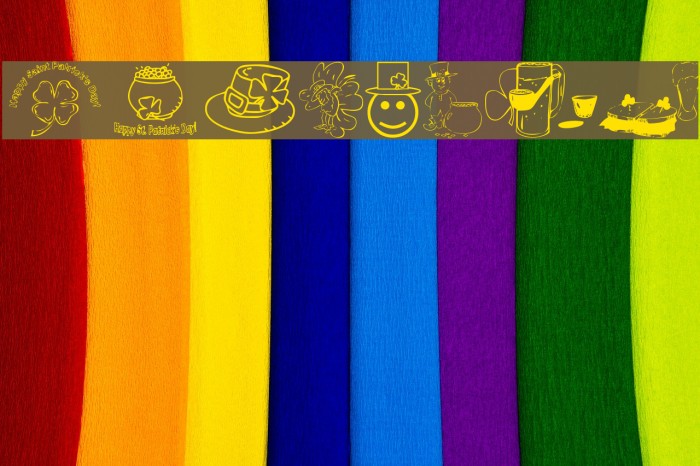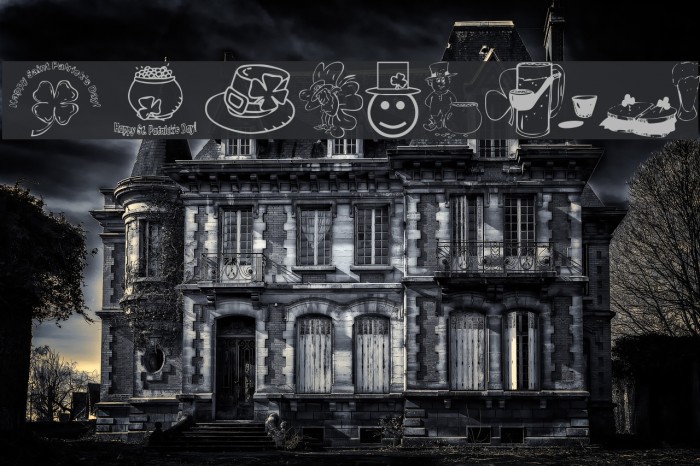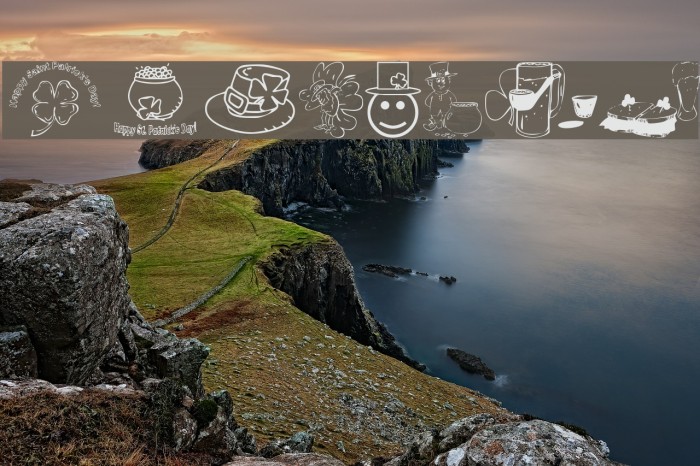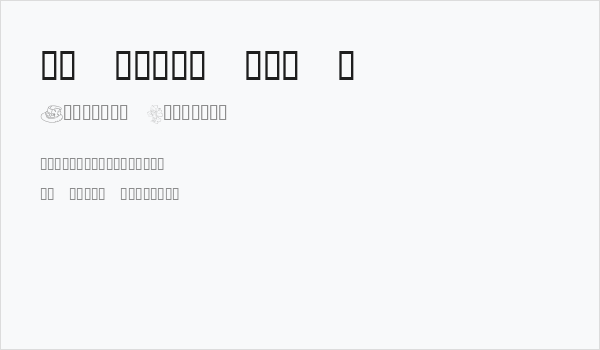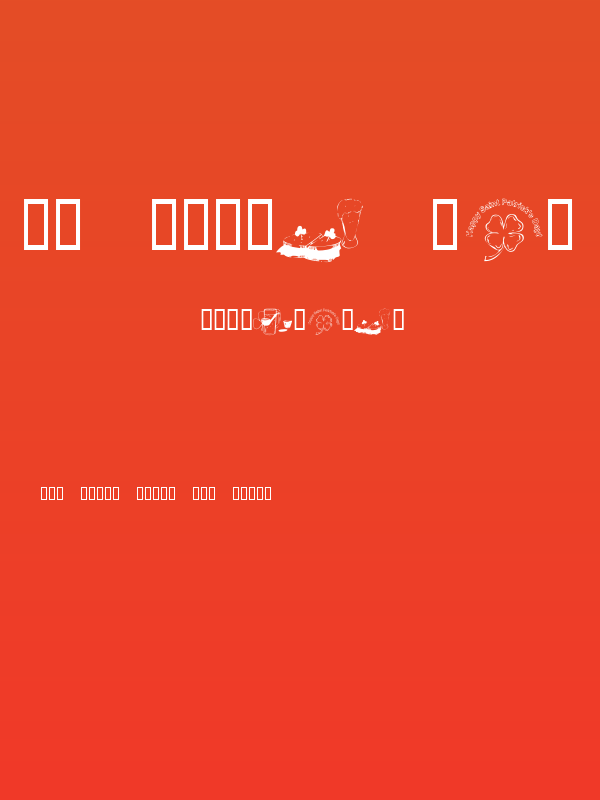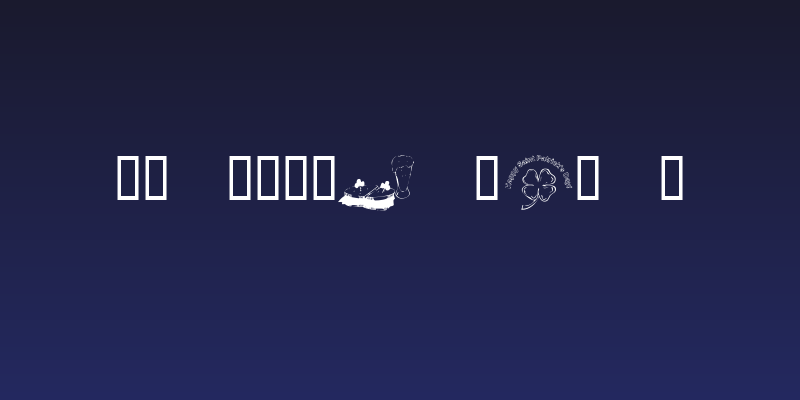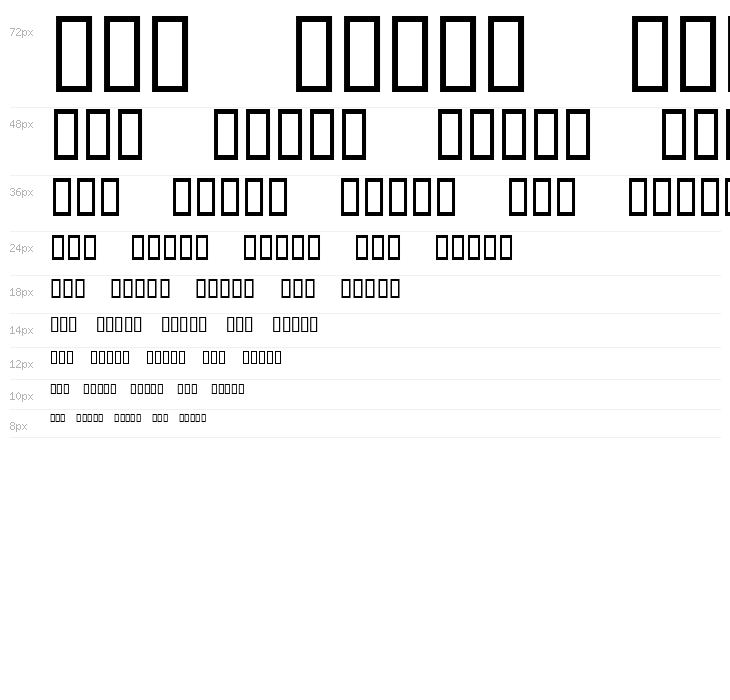
KR Irish Kat 4 Font
KR Irish Kat 4 Description
This is a decorative font featuring playful, themed illustrations instead of traditional alphanumeric characters. Each character is represented by a unique St. Patrick's Day-themed graphic, such as shamrocks, leprechaun hats, and pots of gold. The style is whimsical and festive, perfect for adding a touch of holiday spirit to any project. The graphics are detailed and cartoonish, making them suitable for informal and fun designs.
| Use Case | Logos, Headlines, Decorative elements |
| Proposed Projects | Ideal for holiday cards, party invitations, festive banners, and themed social media graphics. |